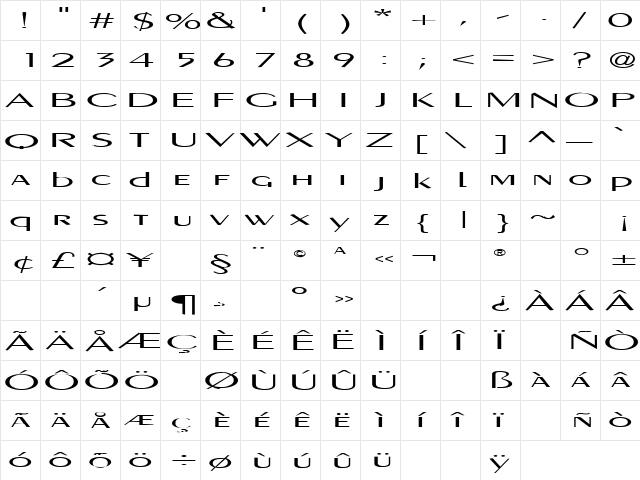
Custard Pie 15 Regular Font Preview
Custard Pie 15 Regular
Design Context for Custard Pie 15 Typeface
Custard Pie 15 takes a measured approach to typography — its balanced proportions and neutral character make it a reliable workhorse for both digital and print work.